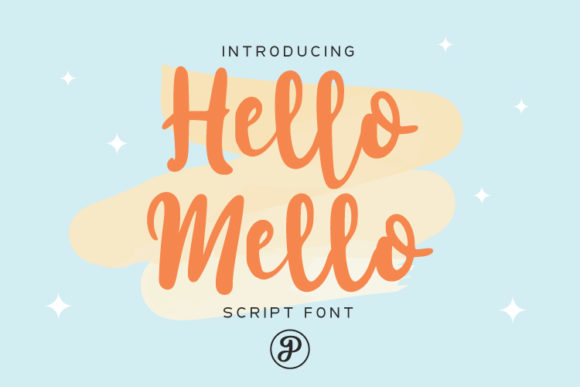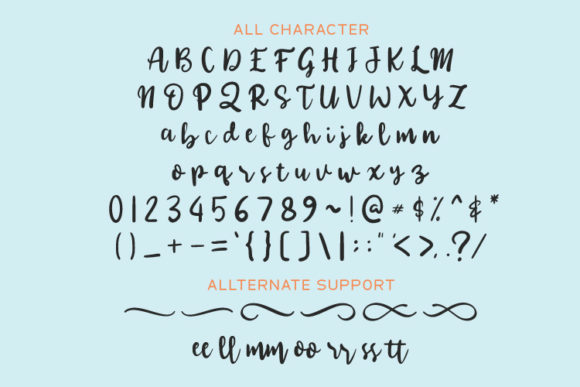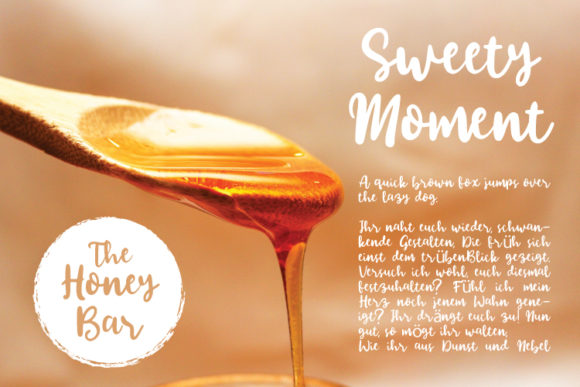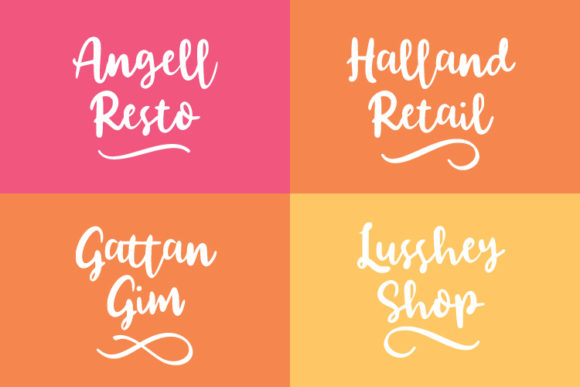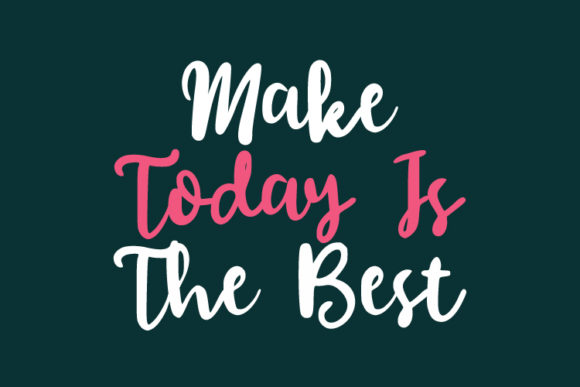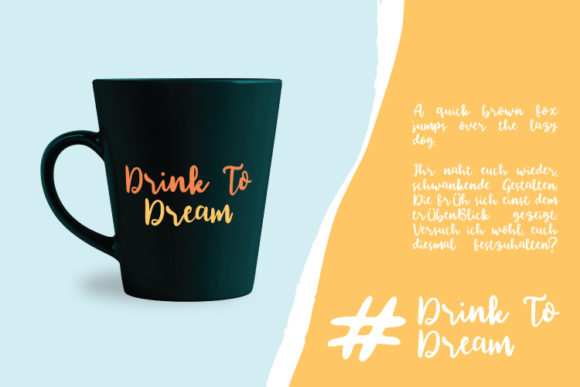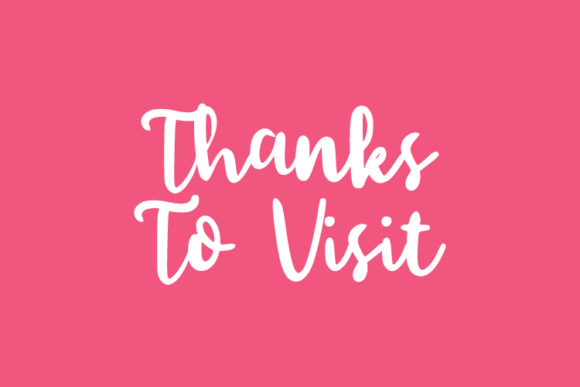
Hello Mello Font
About Hello Mello Font
Hello Mello is a cursive and timeless handwritten font. It is the best choice for creating eye catching logos, branding and quotes. Every letter has a unique and beautiful touch, which will make your design come alive!